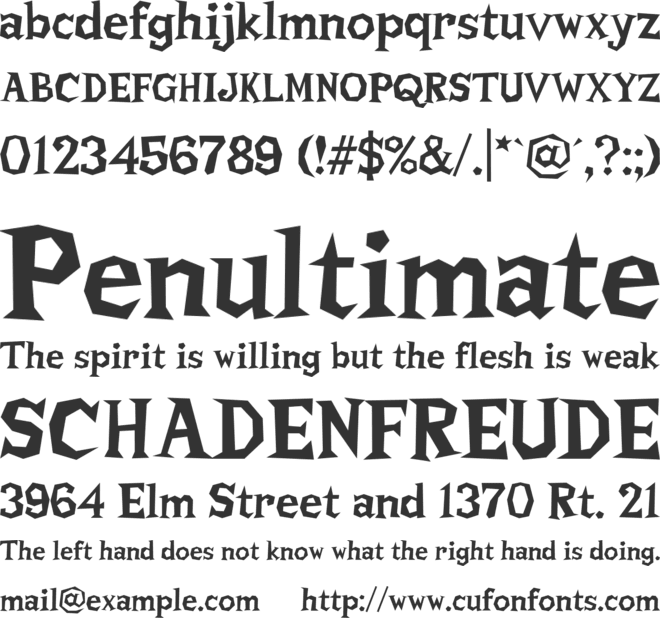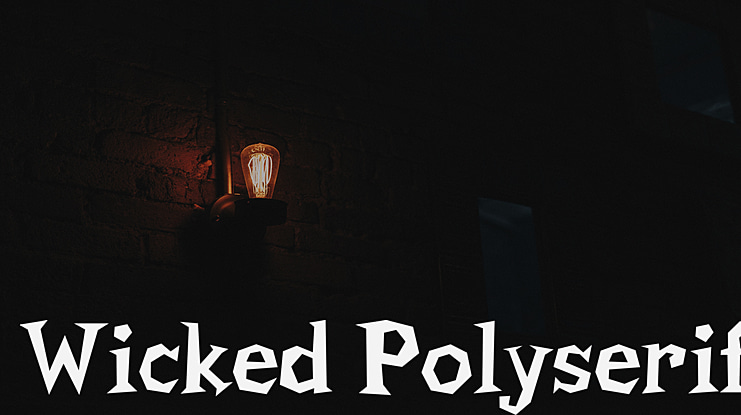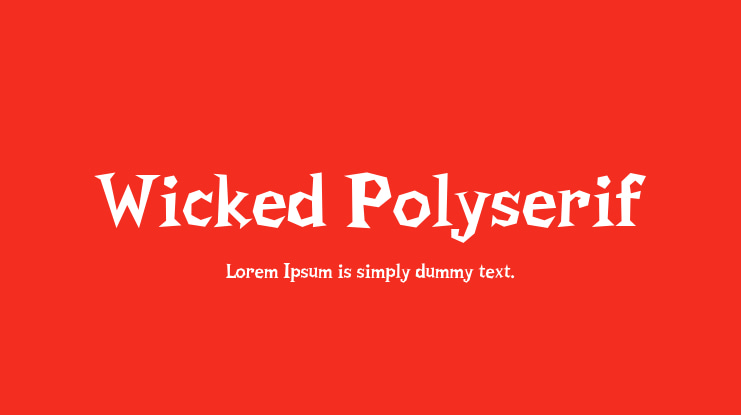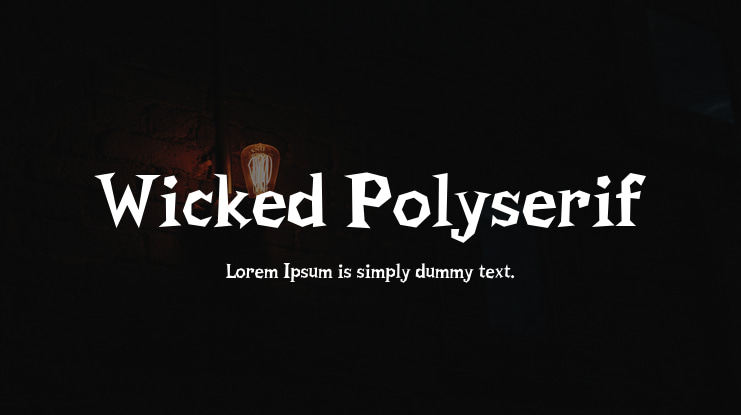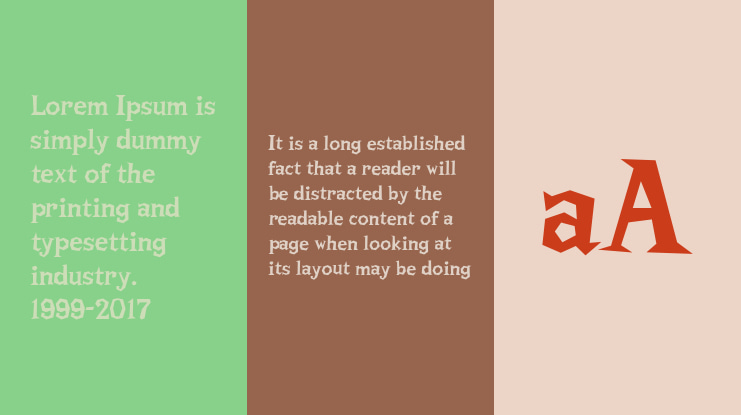
Wicked Polyserif Font
Familiar with Polygon Party? Then this font should suit you.
You can use it for stop-motion films, birthday parties, crafty ideas or any other type of content that suits you and/or everyone!